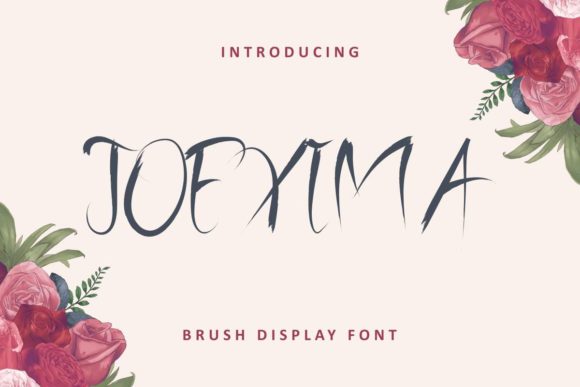
## Introducing Joexima: The Ultimate Handcrafted Script for a Touch of Elegance
Prepare to embark on an extraordinary typographic journey with Joexima, a captivating script font meticulously crafted to elevate your designs. This exceptional creation from EdricStudio embodies the essence of sophistication and artistry, transforming your words into breathtaking masterpieces.
Joexima's meticulously crafted curves and graceful strokes exude an air of effortless elegance that is sure to captivate your audience. Each letter dances across the page like a vibrant brushstroke, infusing your designs with a touch of timeless beauty. Whether you seek to create captivating social media posts, eye-catching logos, or heartfelt invitations, Joexima has the power to transform your ideas into unforgettable works of art.
Immerse yourself in a world of creative possibilities with Joexima. Its versatile nature lends itself effortlessly to a myriad of design projects, from elegant wedding invitations to whimsical branding materials. Let your imagination soar as you explore the boundless possibilities that this extraordinary font offers.
Indulge in the exquisite craftsmanship of Joexima today and discover the power of a truly exceptional script font. Prepare to witness the transformation of your designs as they take on a new level of sophistication and elegance. Embrace the artistry of Joexima and let your creativity shine brighter than ever before.
## Joexima: Where Technology Meets Art
In the realm of technology, where innovation meets creativity, Joexima emerges as the perfect font companion. Its sleek and modern aesthetic complements the sharp lines and geometric shapes of tech-inspired designs, creating a harmonious blend of functionality and style.
Harness the power of Joexima to craft visually stunning user interfaces, captivating website designs, and cutting-edge marketing materials. Its versatility extends to the digital realm, where it seamlessly integrates with a range of software and platforms.
Whether you're a seasoned developer or a budding designer, Joexima empowers you to elevate your tech-related creations to new heights. Experience the seamless fusion of technology and artistry as you transform digital landscapes with this exceptional font.
## Joexima: The Script for Every Occasion
Beyond the realm of technology, Joexima's versatility shines in a multitude of other applications. Its graceful curves and elegant strokes lend themselves beautifully to personal projects, handmade crafts, and heartfelt expressions.
Create enchanting invitations that evoke a sense of timeless romance, design thoughtful greeting cards that convey your warmest sentiments, or add a touch of whimsy to your DIY projects with Joexima's charming aesthetic.
From intimate gatherings to grand celebrations, Joexima has the power to transform any occasion into a truly unforgettable affair. Embrace the versatility of this exceptional script and let your creativity flow freely, knowing that Joexima will elevate every project with its timeless elegance.